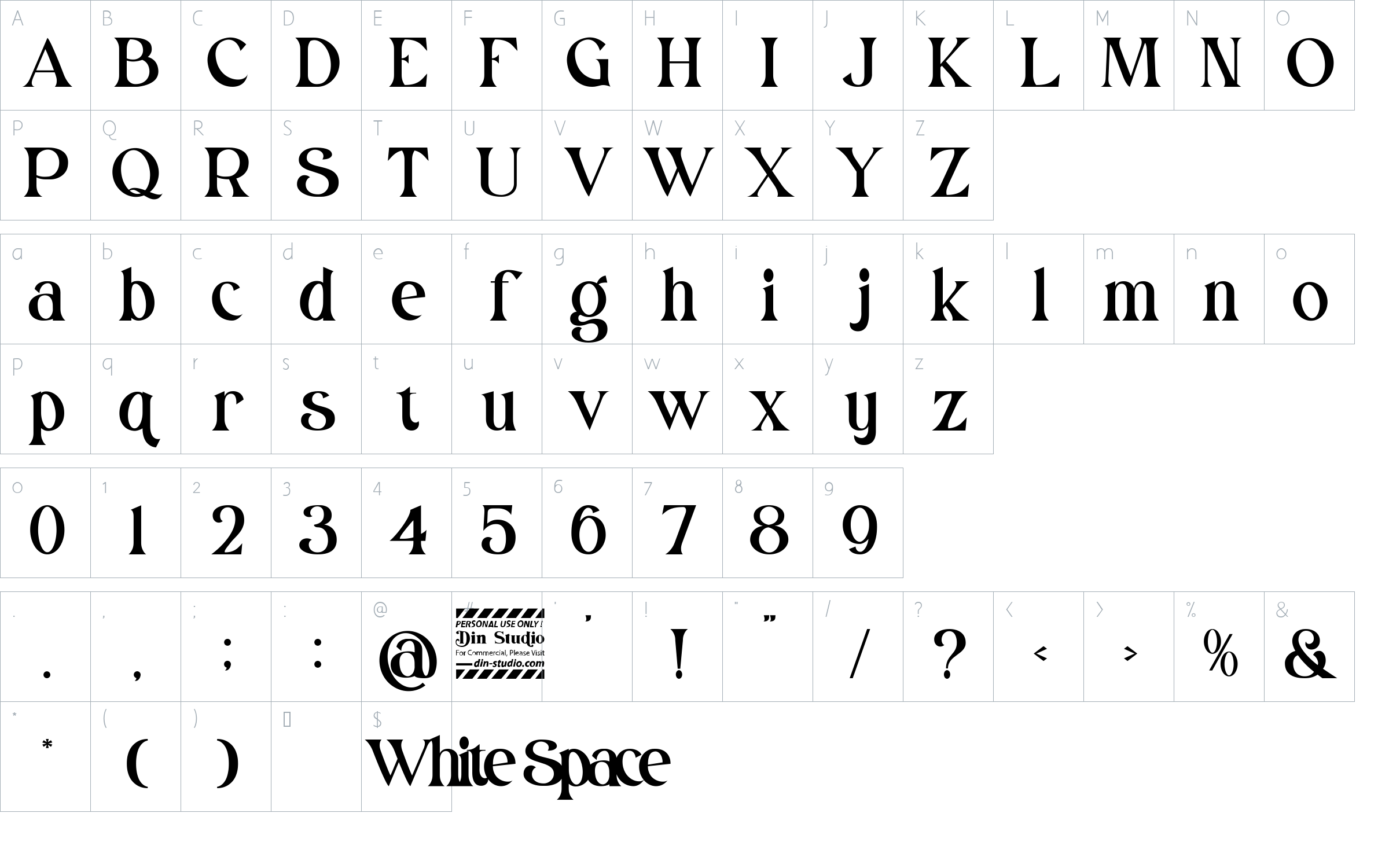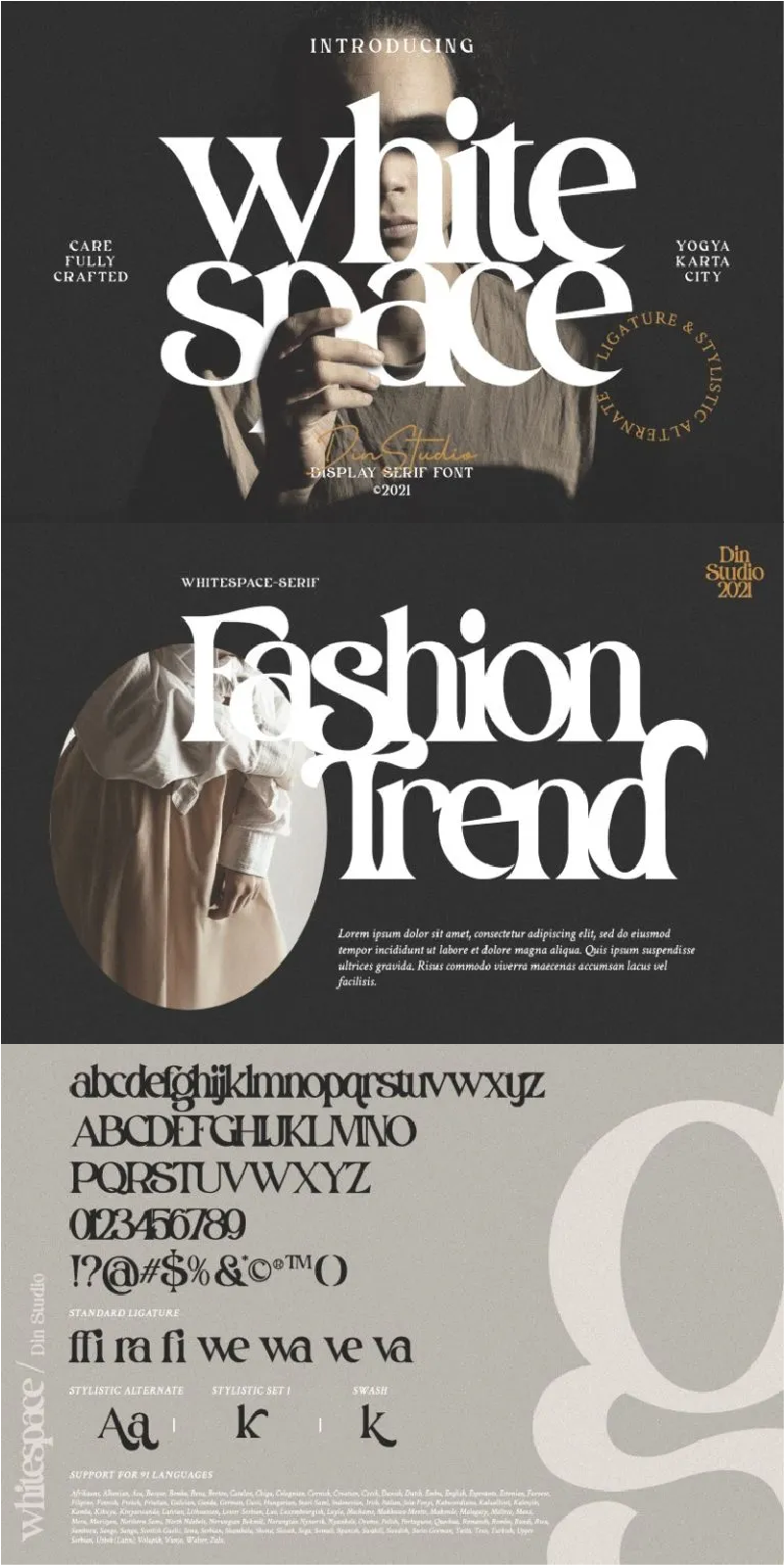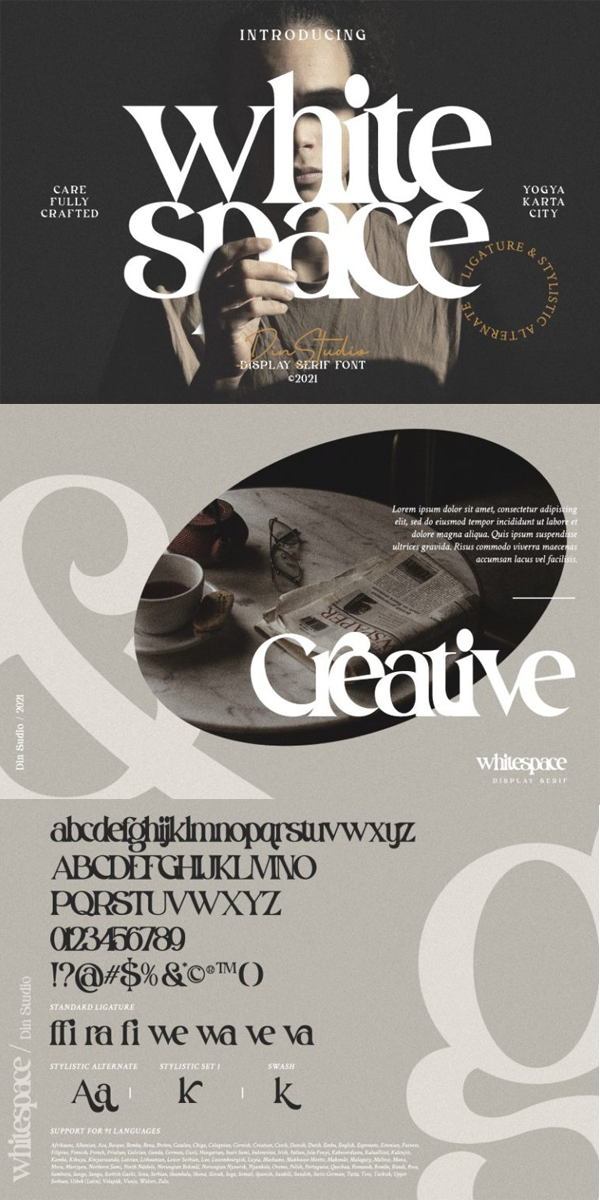
White Space Font
About White Space
Introducing White Space – A Display Serif Font.
This gorgeous, stylish and modern font can be used for a host of different content needs and projects. White Space is ideal for social media banners; posts, ads, printed quotes, t-shirt designs, packaging, and even a modern text overlaying any background images.
-Standard Ligatures
-Multilingual Supports (91 languages)
Afrikaans, Albanian, Asu, Basque, Bemba, Bena, Breton, Catalan, Chiga, Colognian, Cornish, Croatian, Czech, Danish, Dutch, Embu, English, Esperanto, Estonian, Faroese, Filipino, Finnish, French, Friulian, Galician, Ganda, German, Gusii, Hungarian, Inari Sami, Indonesian, Irish, Italian, Jola-Fonyi, Kabuverdianu, Kalaallisut, Kalenjin, Kamba, Kikuyu, Kinyarwanda, Latvian, Lithuanian, Lower Sorbian, Luo, Luxembourgish, Luyia, Machame, Makhuwa-Meetto, Makonde, Malagasy, Maltese, Manx, Meru, Morisyen, Northern Sami, North Ndebele, Norwegian Bokmål, Norwegian Nynorsk, Nyankole, Oromo, Polish, Portuguese, Quechua, Romansh, Rombo, Rundi, Rwa, Samburu, Sango, Sangu, Scottish Gaelic, Sena, Serbian, Shambala, Shona, Slovak, Soga, Somali, Spanish, Swahili, Swedish, Swiss German, Taita, Teso, Turkish, Upper Sorbian, Uzbek (Latin), Volapük, Vunjo, Walser, Zulu